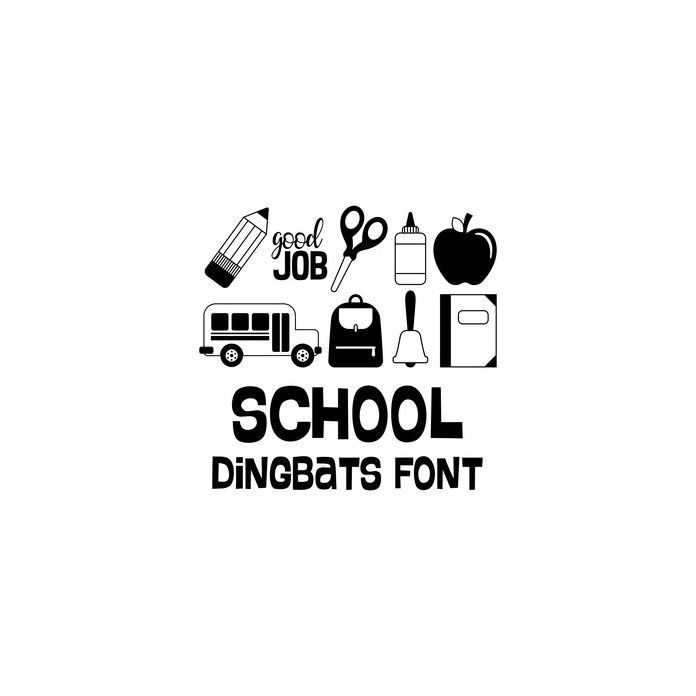
school dingbats font
This cute dingbat font includes 26 school icons that you can type + cut. Make adorable school themed projects with this fun font.